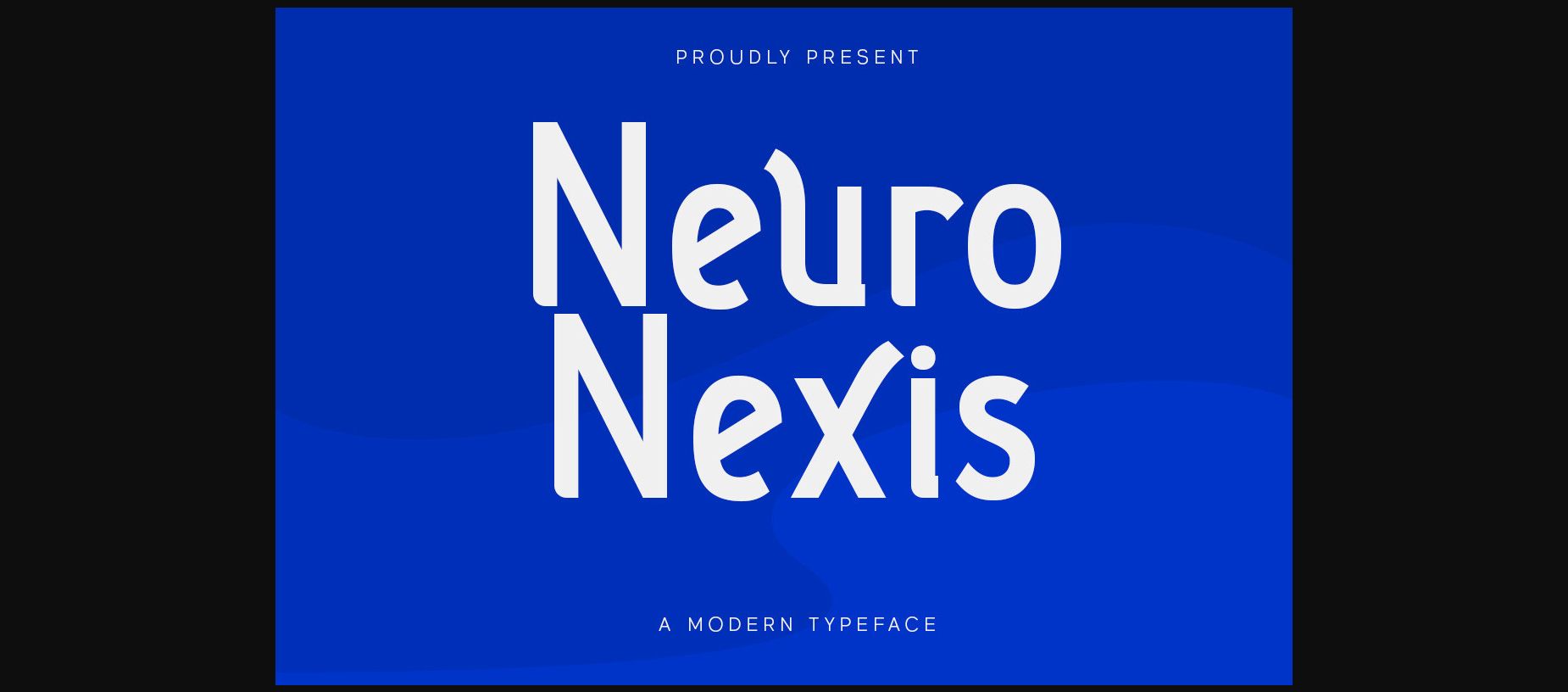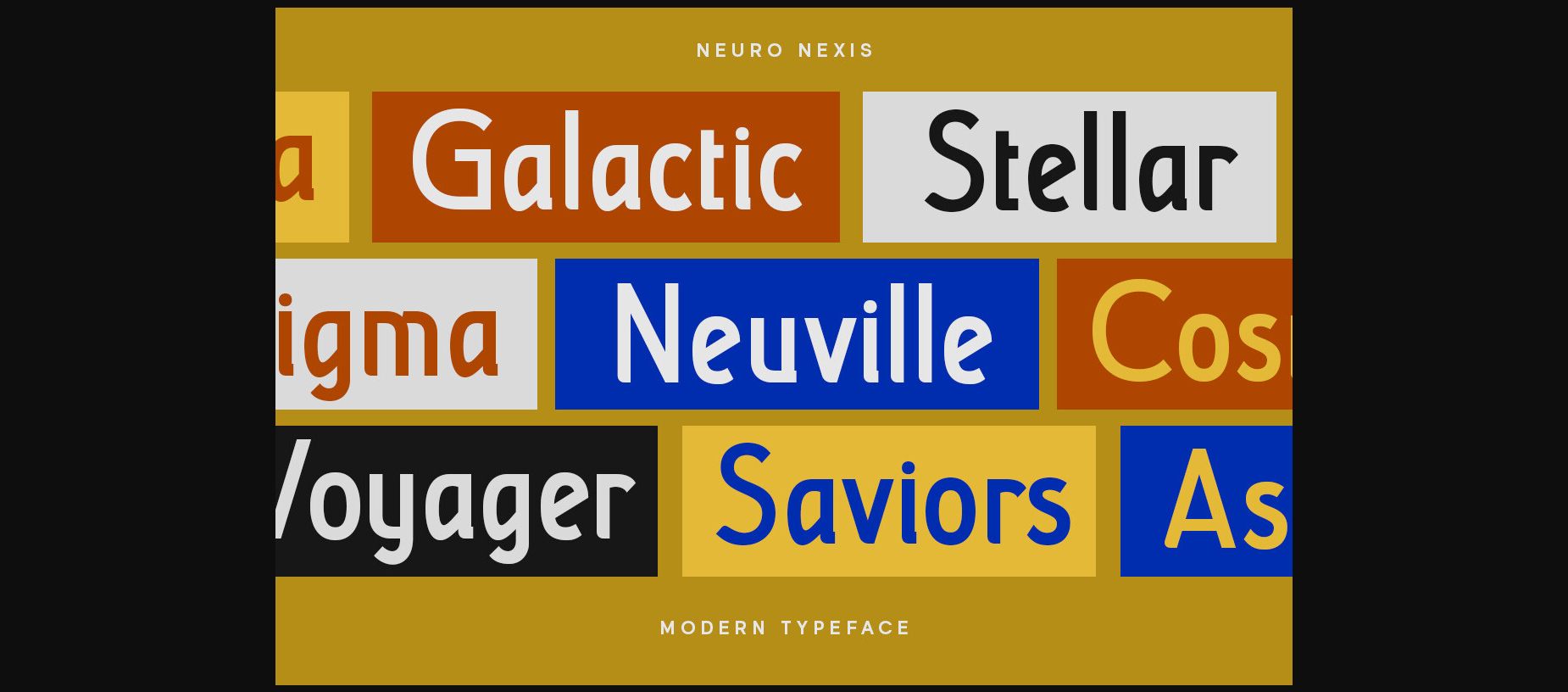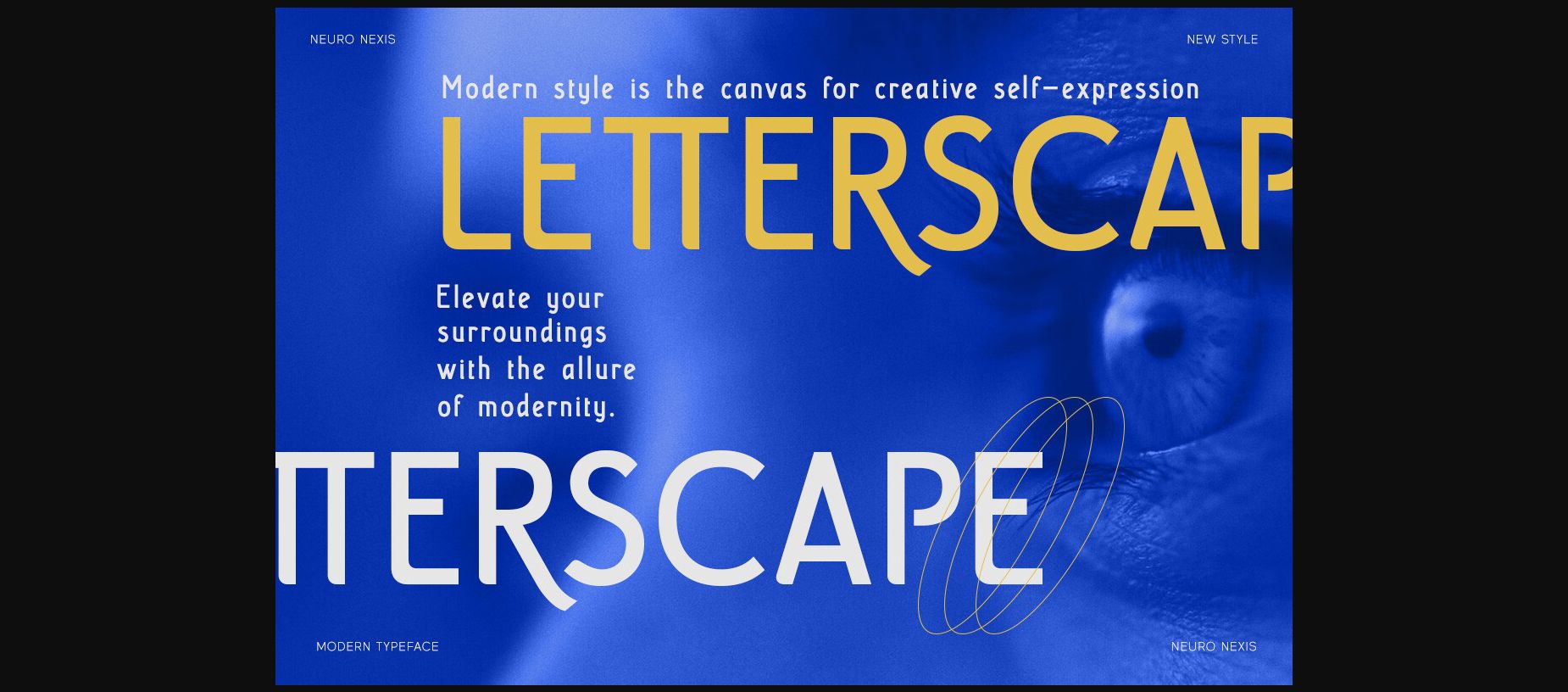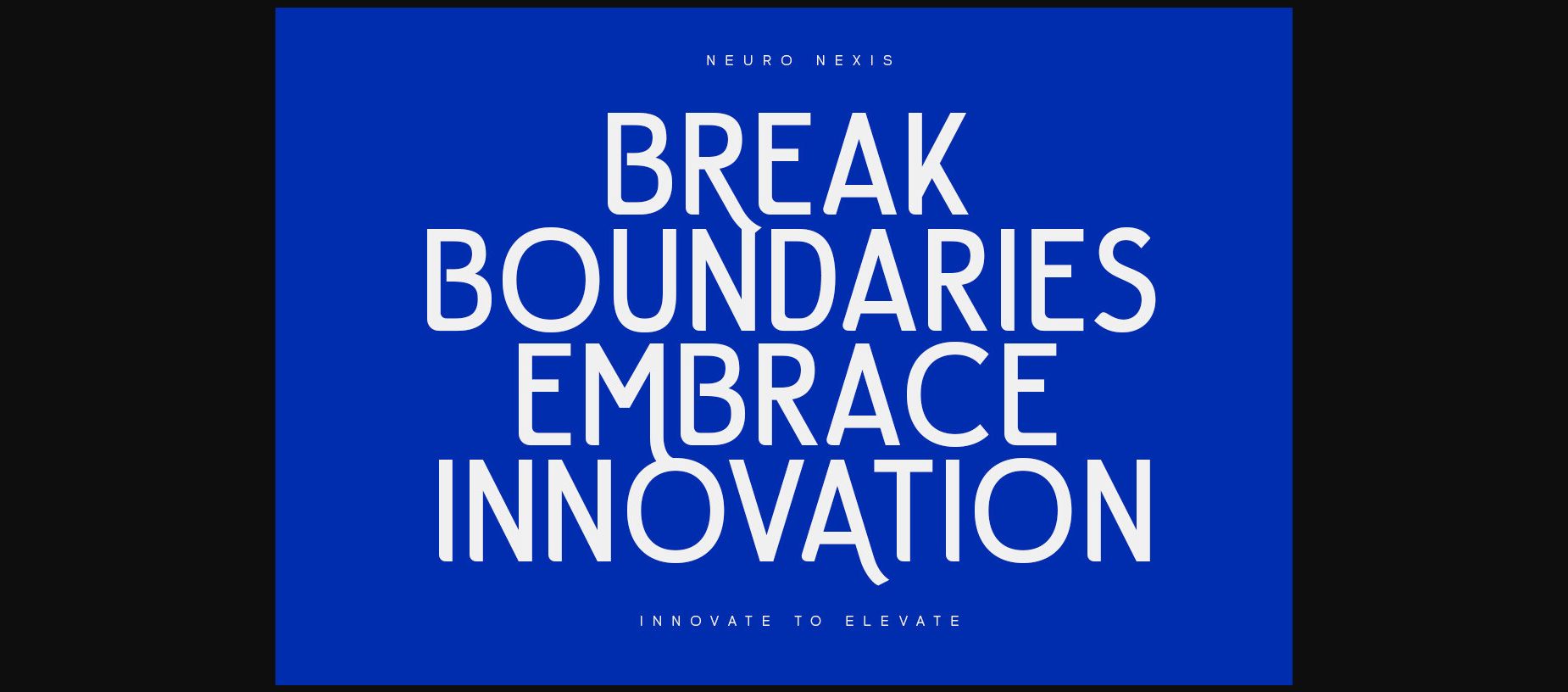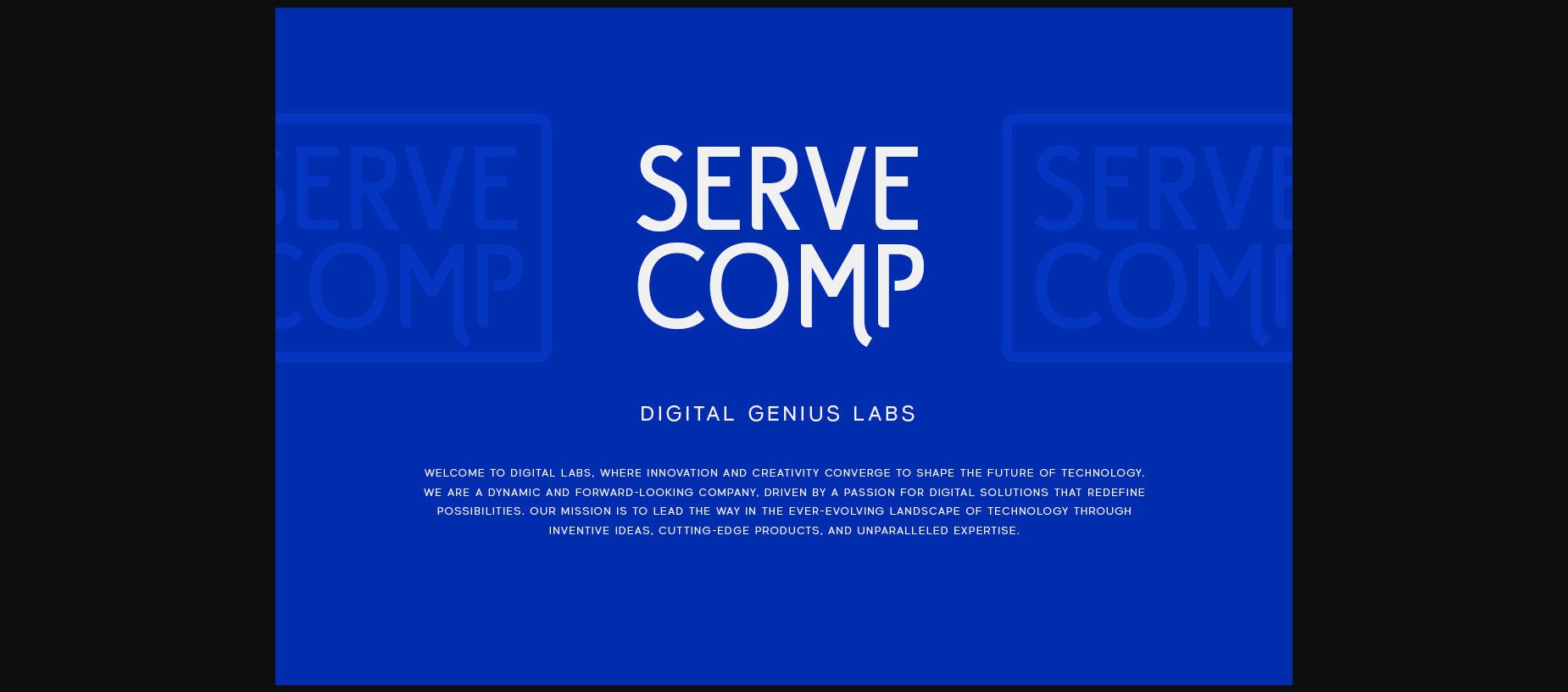
About Neuro Nexis Font
Neuro Nexis is a modern and dynamic sans-serif font. With its futuristic design that conveys a sense of precision and efficiency. This type of font is perfectly made to be applied especially in logos. You can also use it for various formal forms such as invitations, labels, logos, magazines, books, greeting/wedding cards, packaging, fashion, makeup, stationery, novels, or labels.